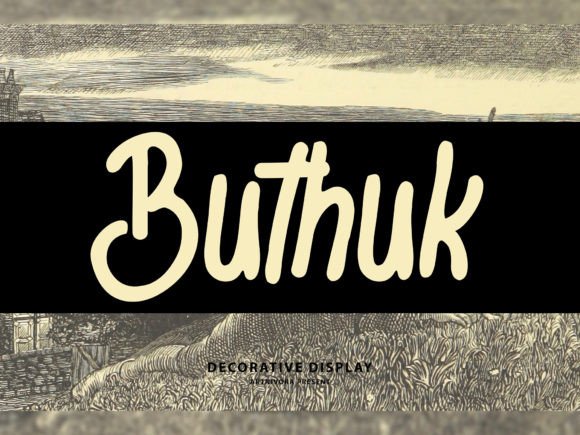
Introducing the Buthuk Font: A Stroke of Brilliance for Your Creative Journey
In the realm of design, where words dance and visuals take flight, the font you choose holds immense power. Meet Buthuk, an exquisite script font that's more than just letters — it's an artistic masterpiece waiting to adorn your creations with elegance and charm.
With Buthuk, see your logos, branding, and quotes come alive in ways you never imagined. Each letter, meticulously crafted and imbued with a unique touch, dances effortlessly across your designs, captivating your audience and leaving an unforgettable impression.
Step into a world of limitless creativity with Buthuk. Whether you're crafting invitations that whisper of romance, designing websites that exude sophistication, or creating social media posts that pop with personality, this font has the power to transform your vision into reality.
But Buthuk isn't just a pretty face. Underneath its graceful curves and flowing lines lies a solid foundation of practicality. A font designed with corporate letters in mind, Buthuk ensures your messages are crystal clear and impactful, even in the most formal settings.
Experience the synergy of art and functionality with Buthuk, the font that elevates your designs to new heights. Unleash your creativity, embrace the joy of expression, and watch as your words take on a life of their own.